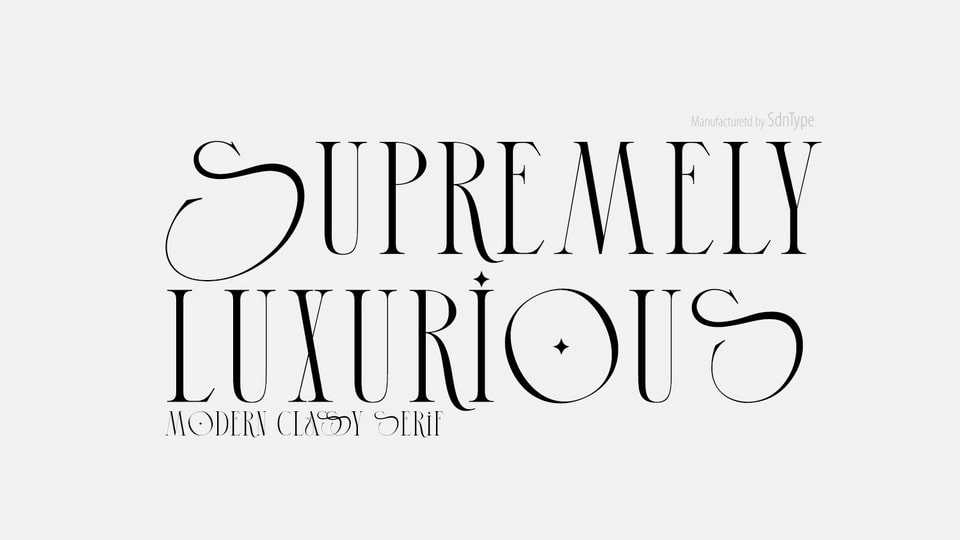
Download Supremely Luxurious font, a delicate and charming serif typeface. Use Supremely Luxurious font for any branding, product packaging, invitation, quotes, t-shirt, label, poster, logo etc.
Designer: TypeClassHeroes